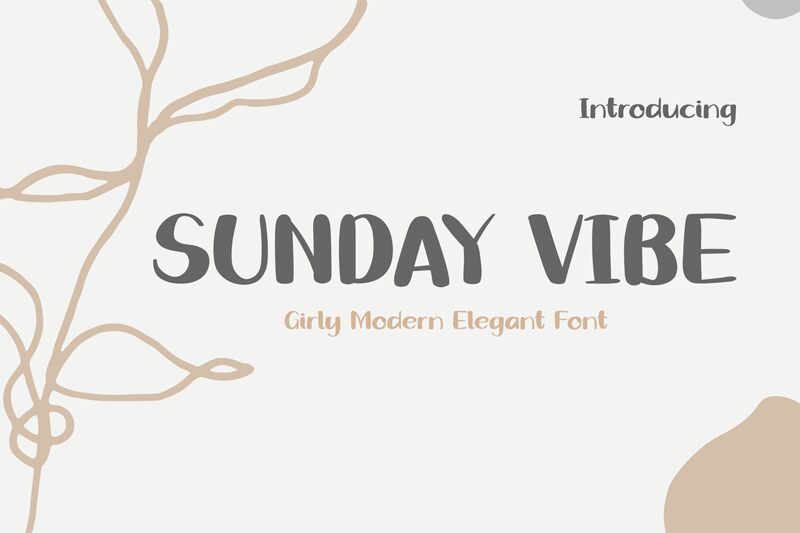
Sunday Vibe font by Pinisiart is a free script font with a casual and relaxed mood. This modern and approachable aesthetic is built on 1960s and 1970s retro influences for authenticity and informal accents for a personal touch line after line. A subtle sense of style is conveyed through the friendly tone and a slight artistic flair from the hand-written look.
Be authentic and unique when creating social media designs and branding, personal and lifestyle product labeling, advertisements, or editorial designs. You can also beautifully decorate classic invites and cards with this free font.